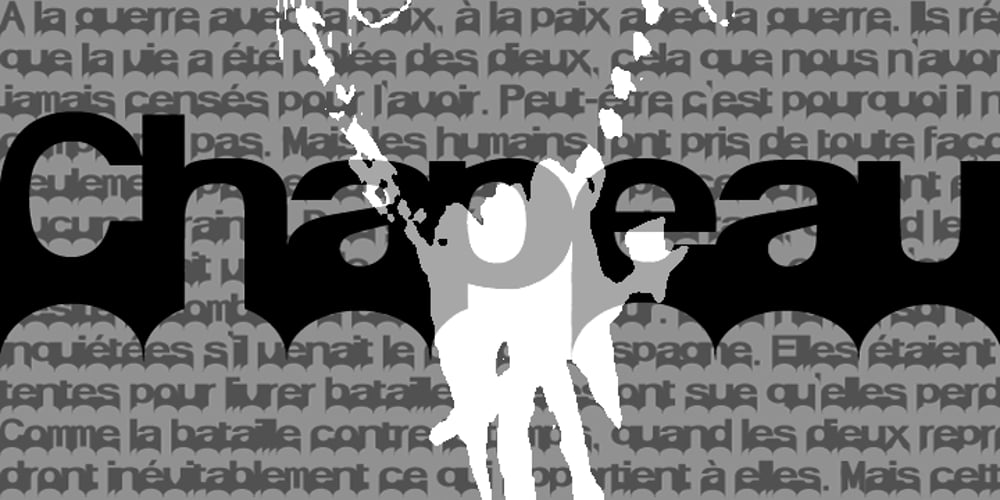
Chapeau Font Family was designed by E Victor C and published by EVCco. Chapeau contains 1 styles and family package options. The cold, conservative strokes of a typical sans-serif/grotesque descend into a distinctive “bat-wing drip” in this subtly spooky font named after the band for which it was originally designed. Perfect for any wordings which project darkness or menace, yet still require an air of respectability. Business in the front, evil in the back. Comes packaged in both TrueType and OpenType formats with standard complement of alpha-numeric glyphs, punctuation marks, mathematical symbols, and European diacritics.